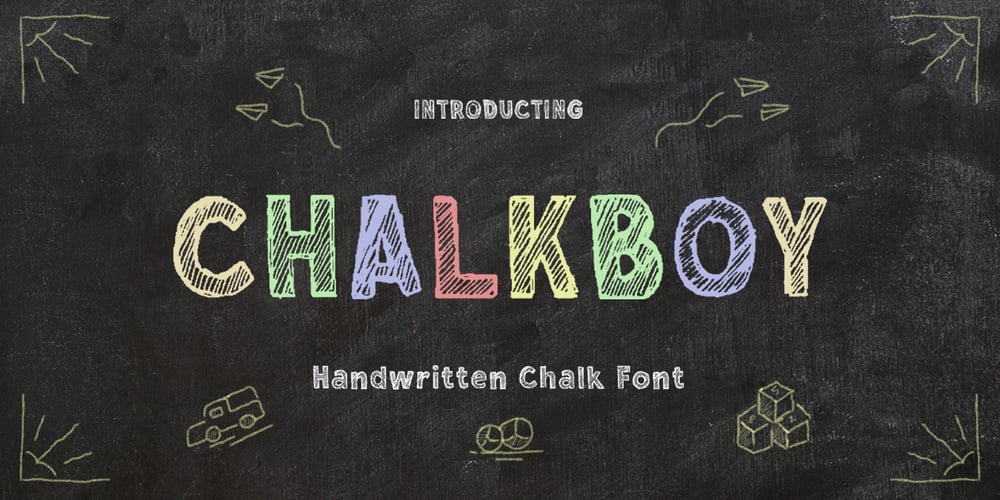
Chalkboy
Chalkboy font
Chalkboy Font Family was designed by Hilmius Akbar and published by Typefactory. Chalkboy contains 1 styles and family package options. Chalkboy – Handwritten Chalk Font is a fun and casual display font suited for kids, playground, or school theme. Whether you’re using it for crafting, digital designing, presentations, or greeting card making, it’s perfect!